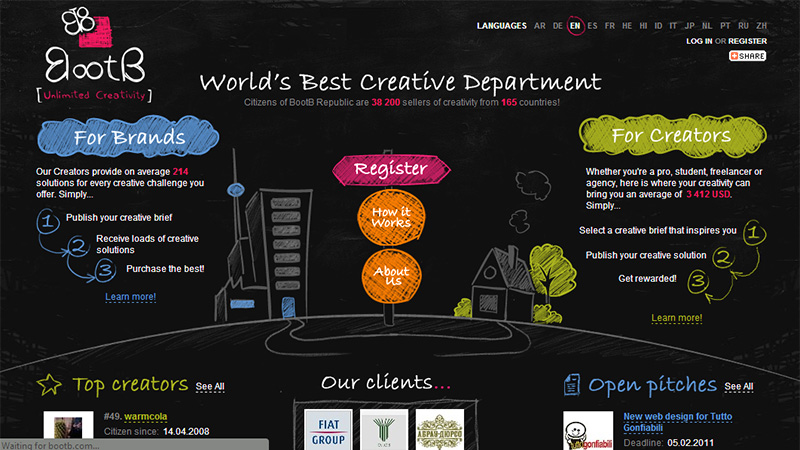
Typography in Website Design: Handwritten Fonts
We have recently published an article on Effective Typography in Web Design, where we chose some beautifully designed typographic effects and designs being a large feature of the website.
Today we are looking at handwritten fonts as a large design element. Handwritten typography has traditionally been used for sites aimed at or about children, comic or comedy style sites and doodle-style website design. More recently we are seeing handwritten fonts in more serious sites as well as the aforementioned styles, and the plethora of available handwritten fonts makes this style of typography easier for designers. We have also selected some free handwritten fonts and web fonts, which are listed after the website showcase.
Websites with Handwritten Typography
Moon
BaBaDum
WinShape Camps
PlayStation – Gran Turismo 6 – First Love
PlayStation - Gran Turismo 6 - First Love
Fillet
Just a Reflektor
Alkopedia
Served MCR
Michael Berger Monkey
GoodTwin
Marcello Pisano
CaoFashion
isDesign
Ntinos Fouskas
Michi Oto
Shiralea
Les Recuperacteurs
Das Richtige fur Jeden
Prime Burger
KIKK Festival
Petit Mariage Entre Amis
Javier Guzman
Bam Strategy
A. Kitchen
Bump
Ousback
BootB
Mariska
Sarah Ray
delaBanda Design
Handwritten Fonts
Journal
Talking to the Moon
Ampersand
Note This
Angelina
Jenna Sue
Halo Handletter
Architect’s Daughter
Architect's Daughter
HarabaraHand
Short Stack
Please Write Me a Song
James Fajardo
Pastel Crayon
Web Fonts
If you prefer to code your fonts into your projects, here is a selection of handwritten web fonts:
Montez
Arizonia
Sue Ellen Francisco
Gochi Hand
Princess Sofia
Covered By Your Grace
Indie Flower
Meddon
Rock Salt
Mr Bedfort
Hopefully you have found some inspiration from the website examples and from the free fonts we have featured in this article.